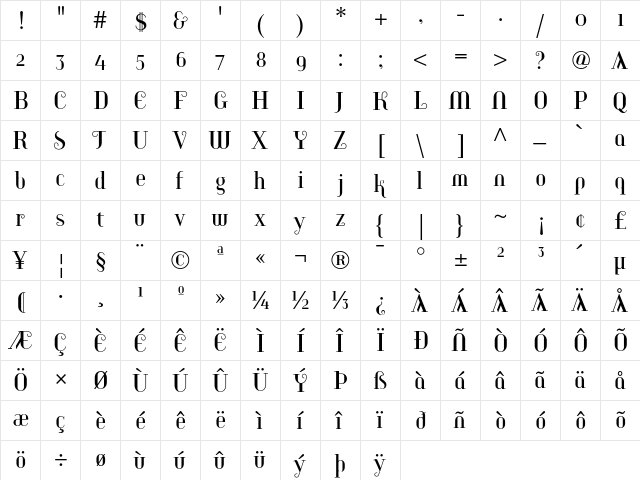
Compass TRF Alternate
| Foundry | Ramiz Guseynov |
| Designer | Ramiz Guseynov |
Design Context for Compass TRF Typeface
Compass TRF is a composed and adaptable typeface that performs quietly and consistently across a wide range of design contexts.